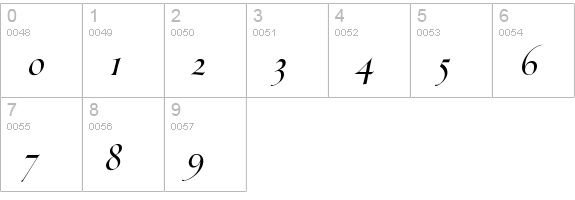
ThrohandRegular-Italic is a distinctive, italic variant in the ThrohandRegular typeface family \xE2\x80\x94 well suited to design and typography projects.
ThrohandRegular-Italic is a stunning font that combines elegance and versatility. With its slanted italic design, this font exudes a sense of sophistication and creativity, making it a perfect choice for various projects. Whether you are designing a logo, creating a poster, or crafting a beautiful invitation, ThrohandRegular-Italic will add a touch of uniqueness to your creations. What sets ThrohandRegular-Italic apart is its seamless blend of contemporary and classic elements. The smooth curves and delicate strokes give this font a timeless appeal, while the slight slant adds a modern twist. This balance between tradition and innovation makes ThrohandRegular-Italic a truly remarkable font that can adapt to any design style. But what makes ThrohandRegular-Italic even more special is that it's available for free download at FontsMarket.com. Yes, that's right – you can get your hands on this exceptional font without spending a dime. FontsMarket.com offers a wide range of high-quality fonts, and ThrohandRegular-Italic is just one of the many gems you can find on their platform. Downloading ThrohandRegular-Italic is a breeze – simply visit FontsMarket.com, locate the font, and hit the download button. Within seconds, you'll have this captivating font ready to enhance your design projects. Whether you're a professional graphic designer or a passionate hobbyist, having access to free fonts like ThrohandRegular-Italic can truly elevate your creative endeavors. So why wait? Discover the beauty and versatility of ThrohandRegular-Italic today. Download this remarkable font from FontsMarket.com and unlock a world of design possibilities. Let ThrohandRegular-Italic become your go-to font for all your creative endeavors, and watch your designs come to life with elegance and flair.